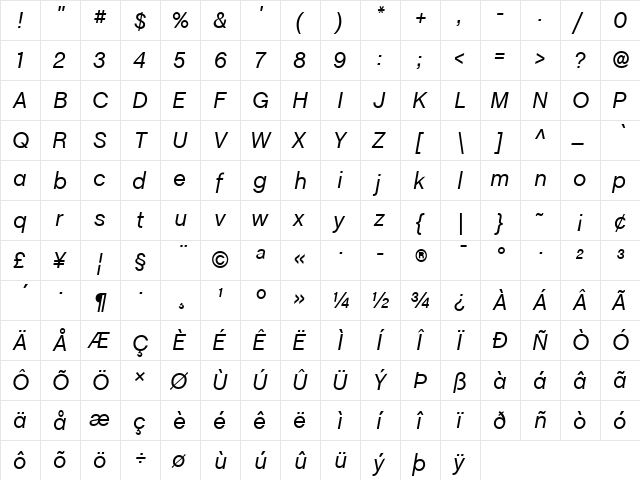
ChaletBook Italic
| Designer | House Industries |
Design Context for ChaletBook Typeface
ChaletBook takes a measured approach to typography — its balanced proportions and neutral character make it a reliable workhorse for both digital and print work. Its italic angle brings a sense of urgency and motion to the letterforms.